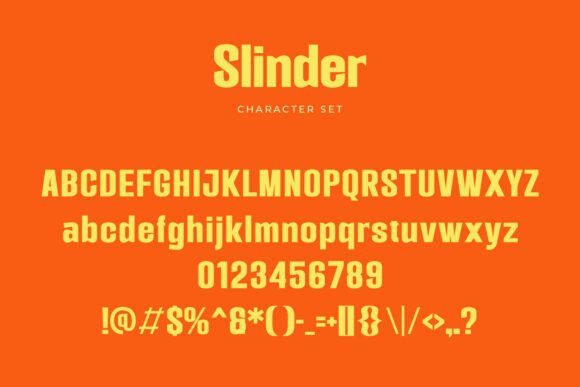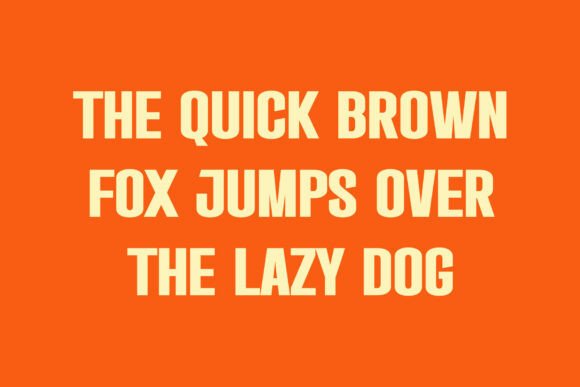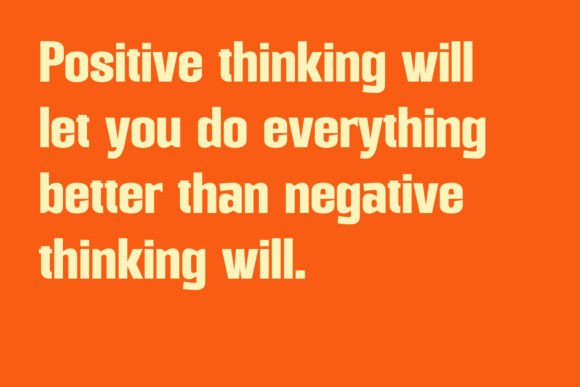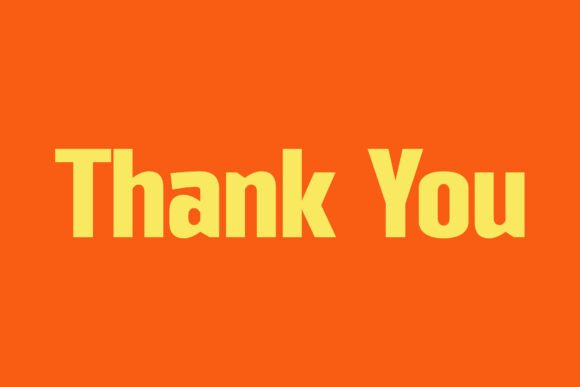
Introduction to Slinder Font
Have you ever been stuck on a creative project, staring at a blank canvas, unsure of how to bring your vision to life? I’m sure many of us have been there. But what if I told you that the perfect solution lies in a single, elegant font? Enter the Slinder Font, a modern sans serif typeface designed to elevate your design game.
With its clean lines, balanced proportions, and sleek aesthetic, the Slinder Font is a game-changer for designers. Its versatility makes it perfect for branding, web design, and editorial use, ensuring that your message is conveyed with clarity and precision. Whether you’re working on a high-profile project or simply need a reliable design resource, the Slinder Font is an invaluable asset. Plus, with its free download option, you can easily incorporate it into your workflow, even on a transparent background.
Key Features of Slinder Font
- Unique characteristics: Slinder Font features a modern, sleek design with clean lines and geometric shapes, making it an excellent choice for contemporary creative projects.
Honest Review: Slinder Font
As a designer, I’m always on the lookout for high-quality design resources that can elevate my creative projects. The Slinder Font caught my eye with its sleek and modern aesthetic, and I was eager to put it to the test.
- ✨ The font is incredibly versatile and can be used for a wide range of creative projects, from digital design to print materials.
- ⚠️ The font may not be suitable for projects requiring a more traditional or vintage look, as it has a distinctly modern feel.
- ⚠️ Some users may find the font’s boldness overwhelming, so it’s essential to use it in moderation.
Overall, I’m impressed with the Slinder Font’s quality and versatility. While it may not be perfect for every design project, it’s a valuable addition to any designer’s toolkit. With its high-quality design and transparent background feature, it’s definitely worth checking out for your next creative project.
Getting the Most Out of Slinder Font
To get the most out of Slinder Font, experiment with different font sizes, colors, and combinations. This font is particularly useful for creating visually appealing headings and titles. Don’t be afraid to push the boundaries of what’s possible with this unique design resource.
Slinder Font is commonly used for creative projects such as: